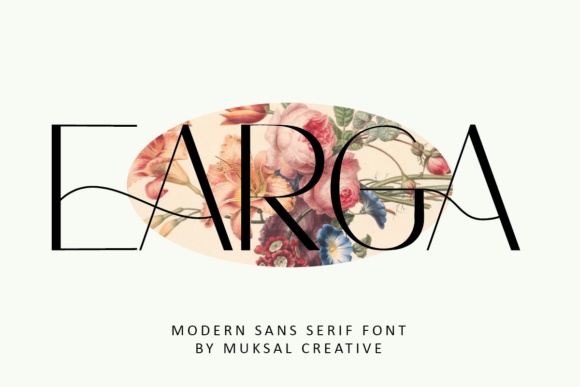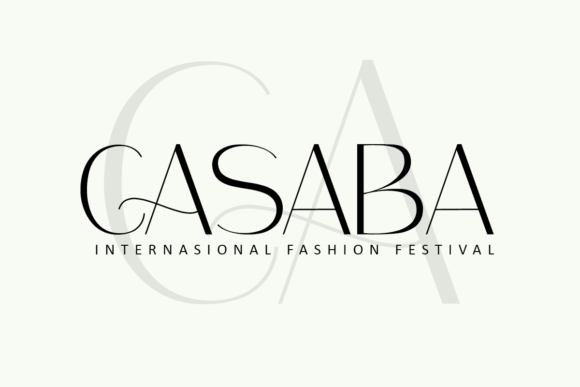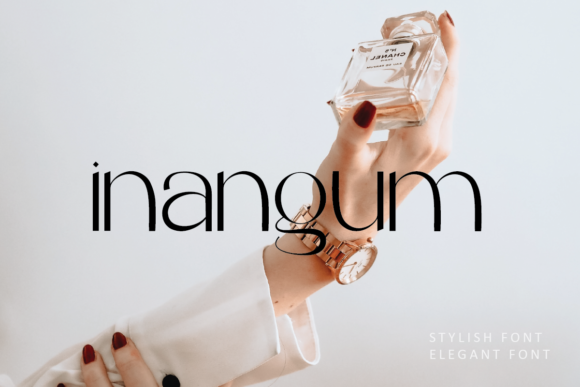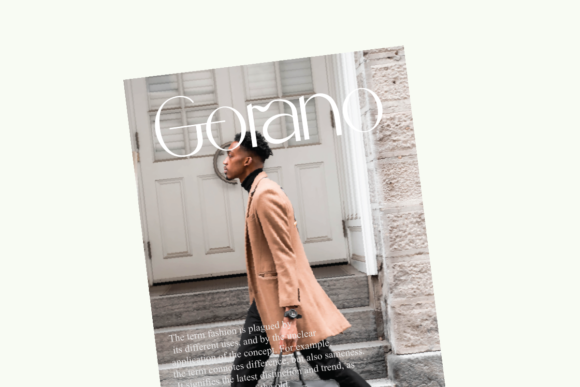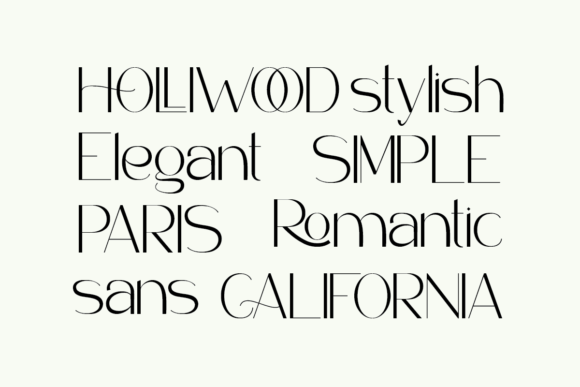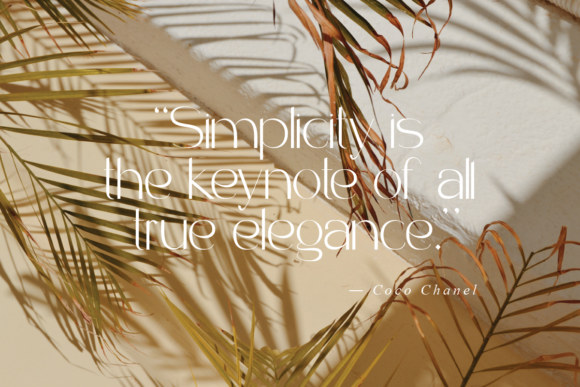
Earga Font
Earga is a clean and elegant sans serif font. This font is PUA encoded which means you can access all of the glyphs and swashes with ease! It will elevate a wide range of crafting ideas, from cards, to branding, labels and much more.